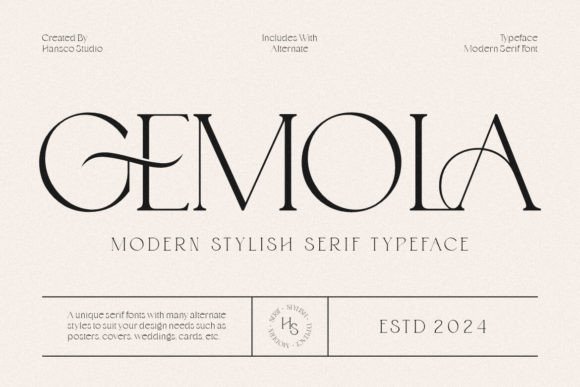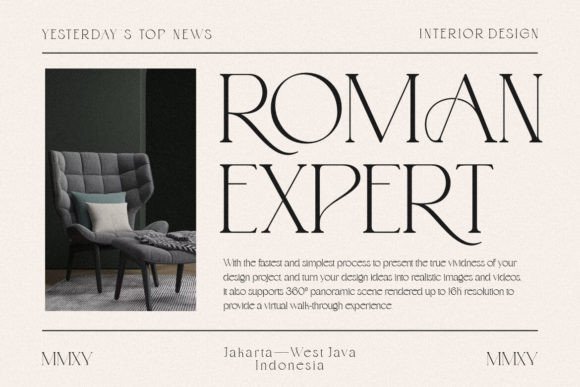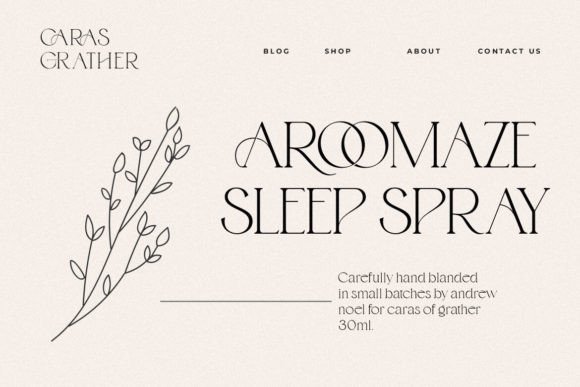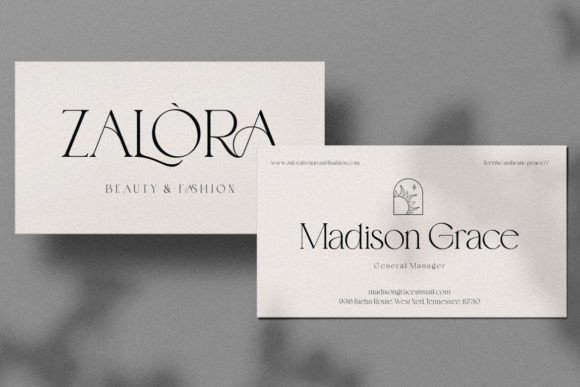
Gemola Font: Elegant Serif for Modern Logo Design & Wedding Invitations
About the Gemola Font
Welcome to the world of Gemola Font, a typeface that will inspire your next great project. Gemola Font is a elegant display serif font with modern look that is perfect for multipurpose projects. I made Gemola Font inspired by the concept of romantic vibes and made it into a unique yet luxury style. This font is also looks fabulous and will fit well in any design and very recommended for logo, crafts, posters, books, branding, quotes, print templates, packaging, invitations, product labels, advertising, wedding project and more.
Gemola’s elegant, yet modern serif design excels in display applications such as logos, headlines, and short-form text on posters or packaging. Its refined character makes it ideal for branding projects conveying luxury or sophistication. However, its intricate details make it less suitable for body text or UI elements requiring high legibility at smaller sizes.
For optimal visual harmony, pair Gemola with a clean sans-serif like Montserrat for a contemporary feel, or a playful script font like Pacifico for a more whimsical aesthetic. A geometric sans-serif such as Lato could also provide a strong counterpoint, creating a balanced and sophisticated pairing.
Gemola projects an air of refined elegance and subtle boldness, making it perfect for brands emphasizing quality and timeless style. Avoid using it in contexts requiring high readability for extended periods, such as lengthy articles or user interfaces.